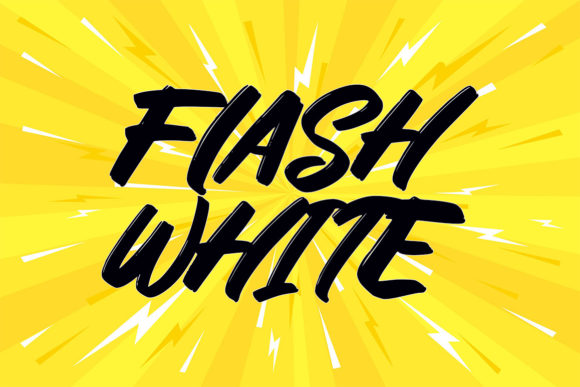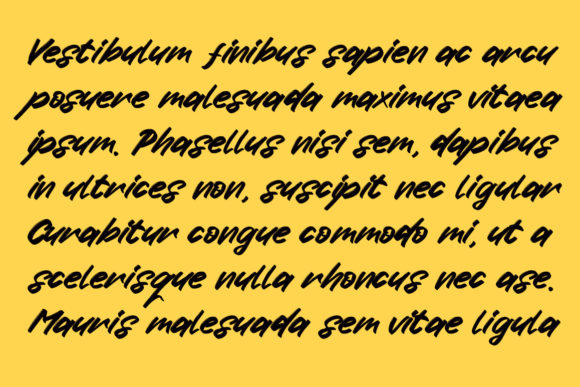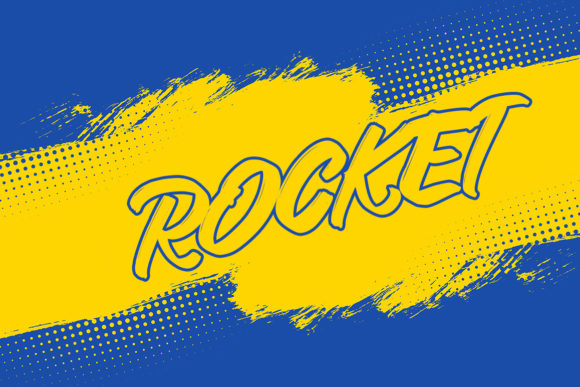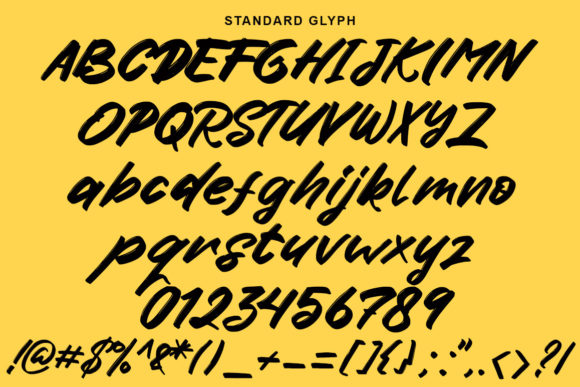
Stike Font
About Stike Font
Stike is a cool, relaxed and adaptable handwritten font. This font reads as strong, confident, and dynamic and can add tons of trendy character to your designs.